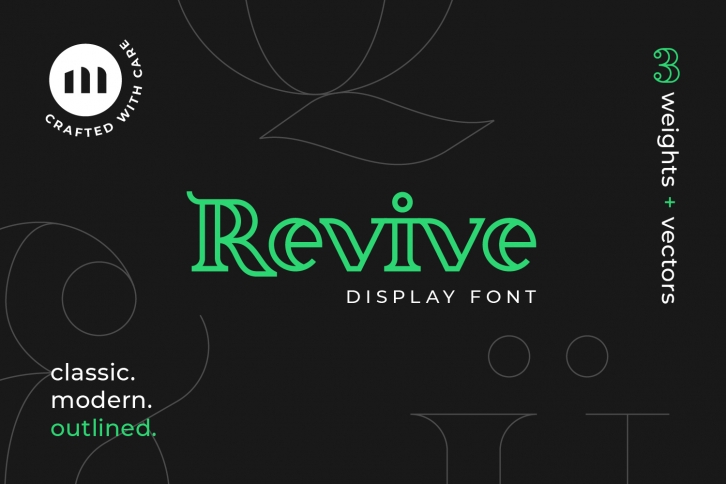
Revive Display Font Download
Revive Display is a trendy and unique font with an authentic style. It was designed by CoreyMoen and it's a great choice for creative people who need such a font. It was released on April 16, 2018 and the file size is 2.55 MB. Revive Display will add an organic vibe to any design idea!